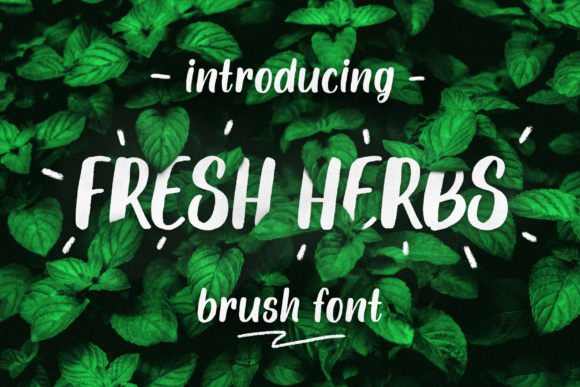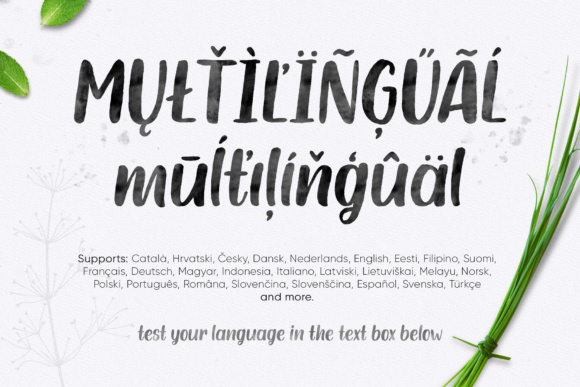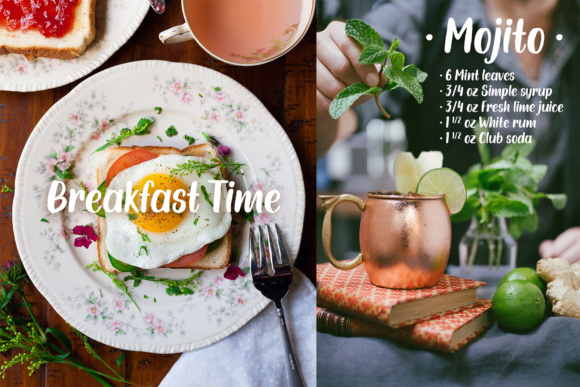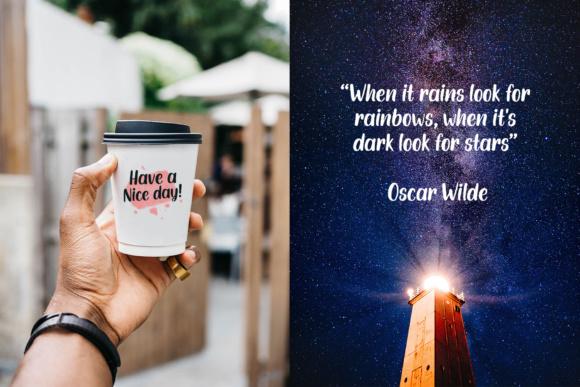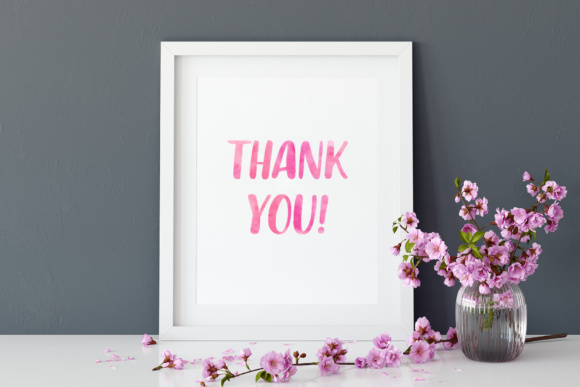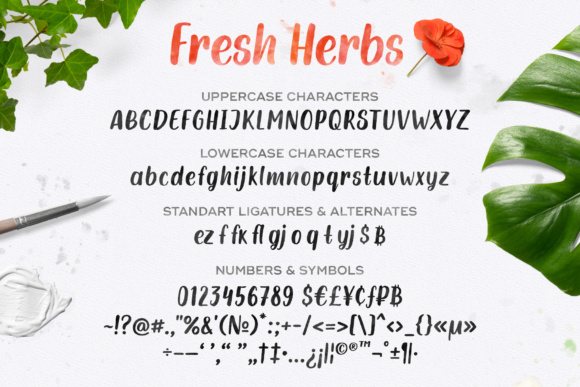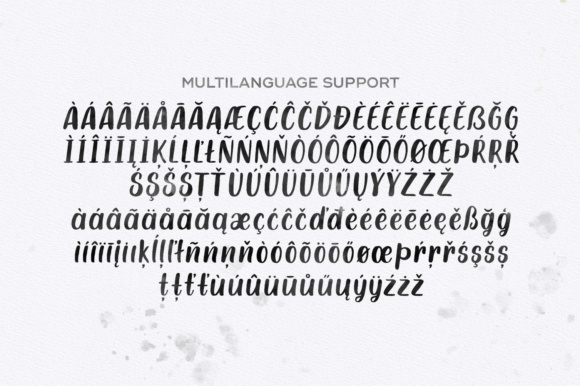
Fresh Herbs Font
About Fresh Herbs Font
The Fresh Herbs is a hand drawn brush font with rough edges (visible in the big size). It looks good when typing small inscriptions and long texts.
Use Fresh Herbs for text on photos, cards designs, product packaging, apparel and any other design that needs a striking brush font.